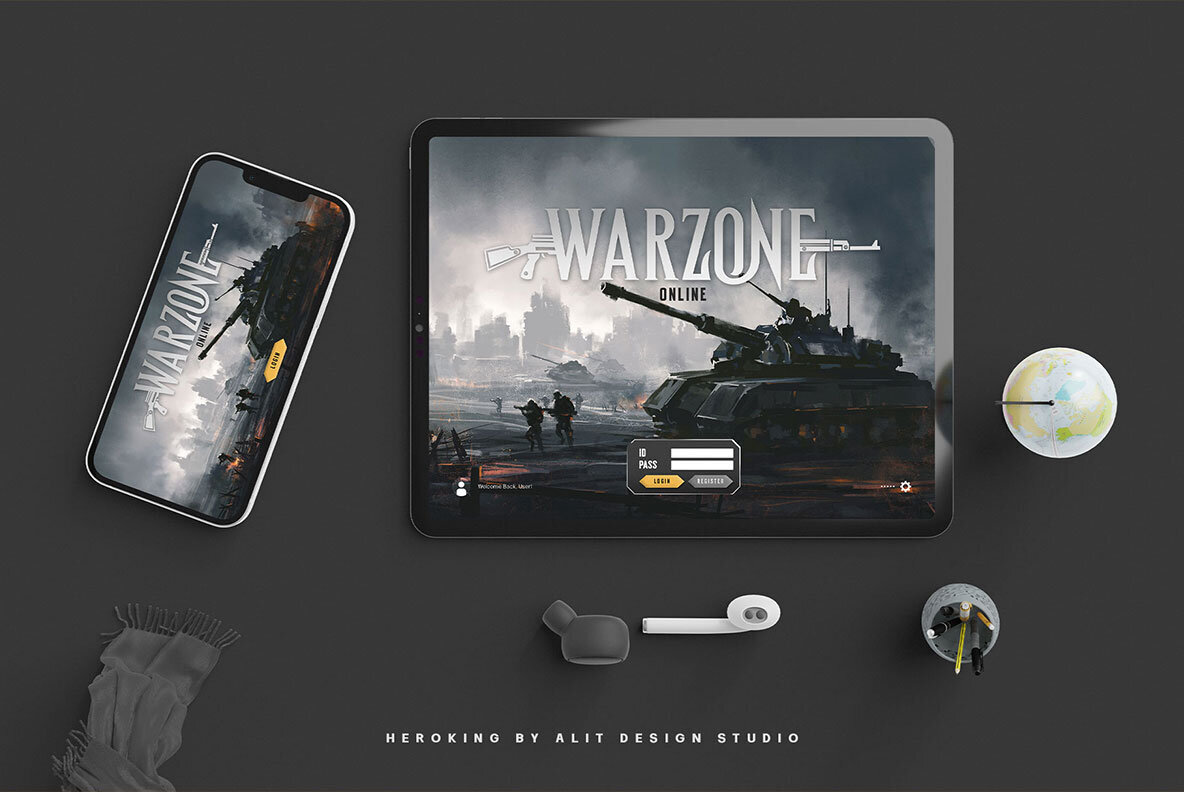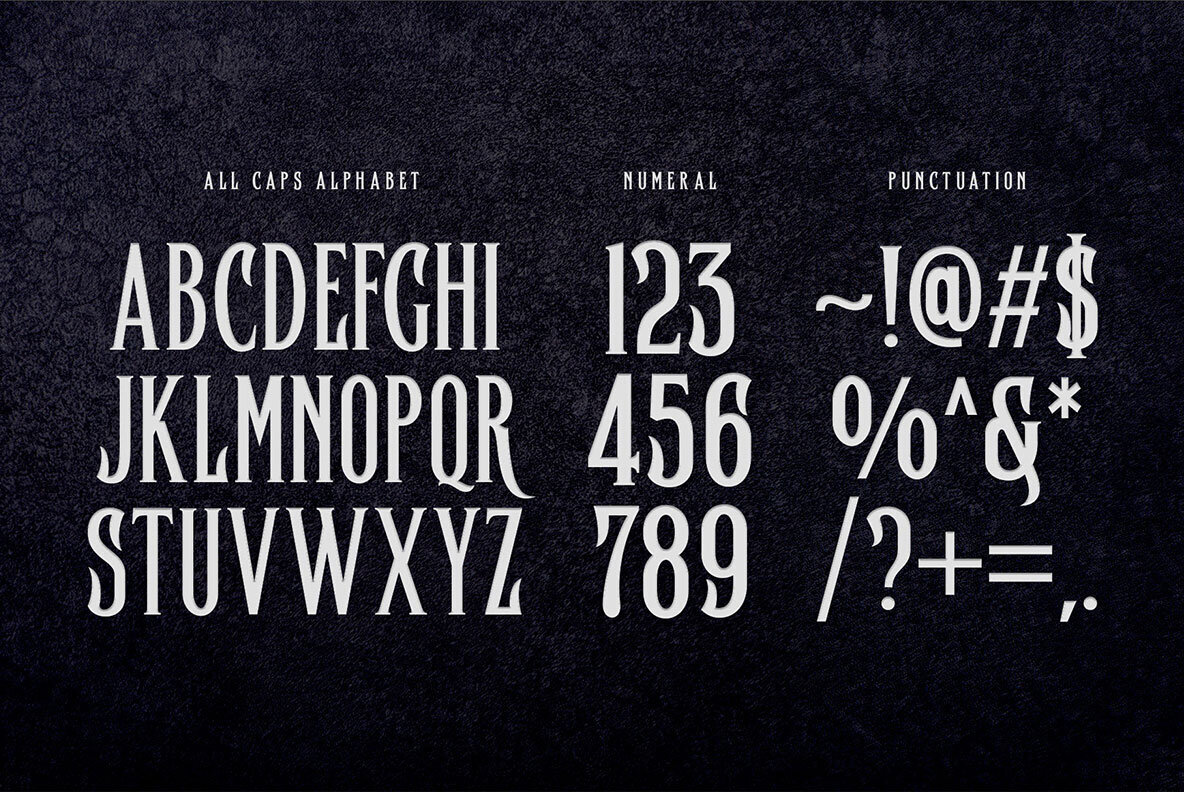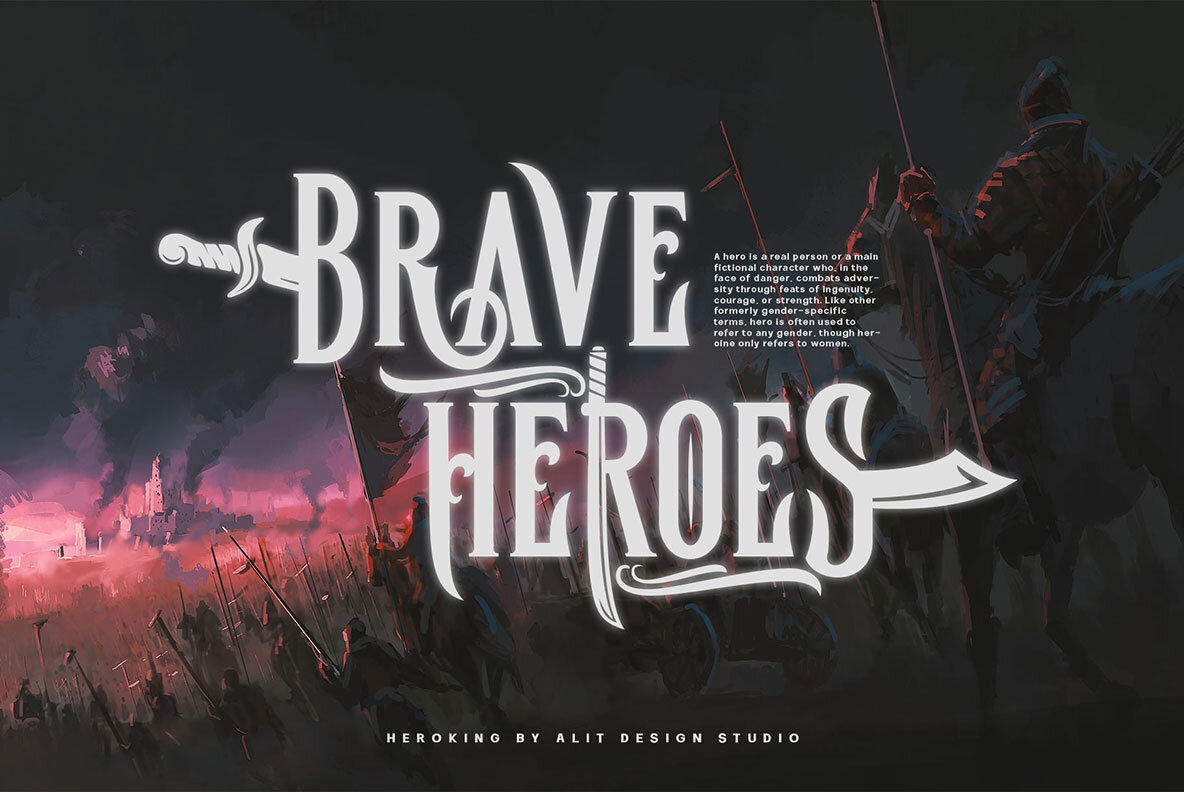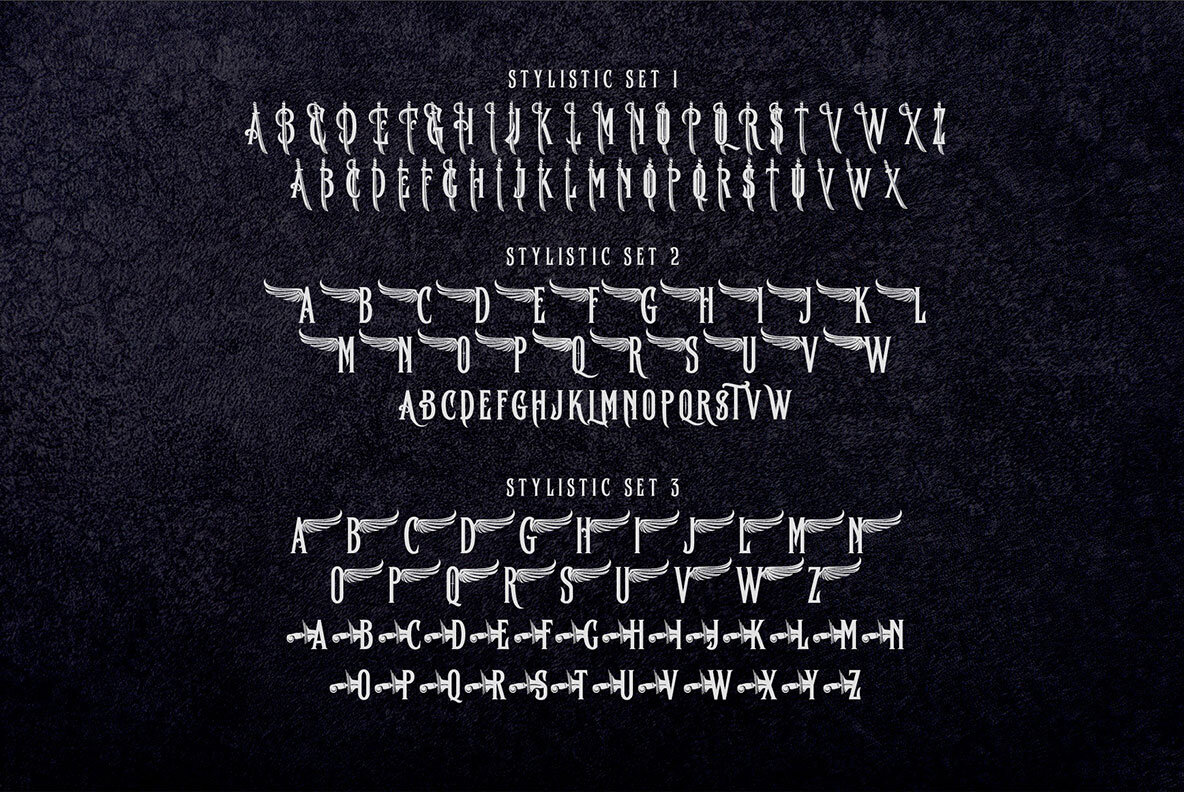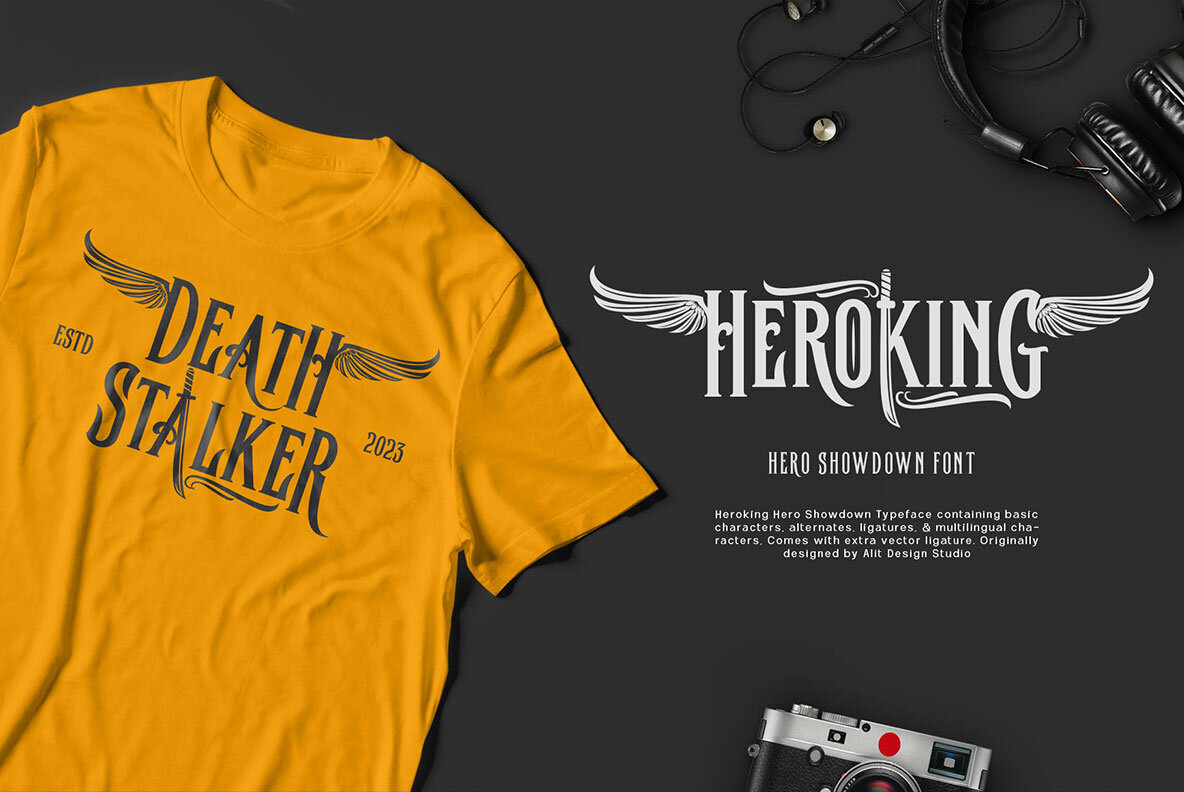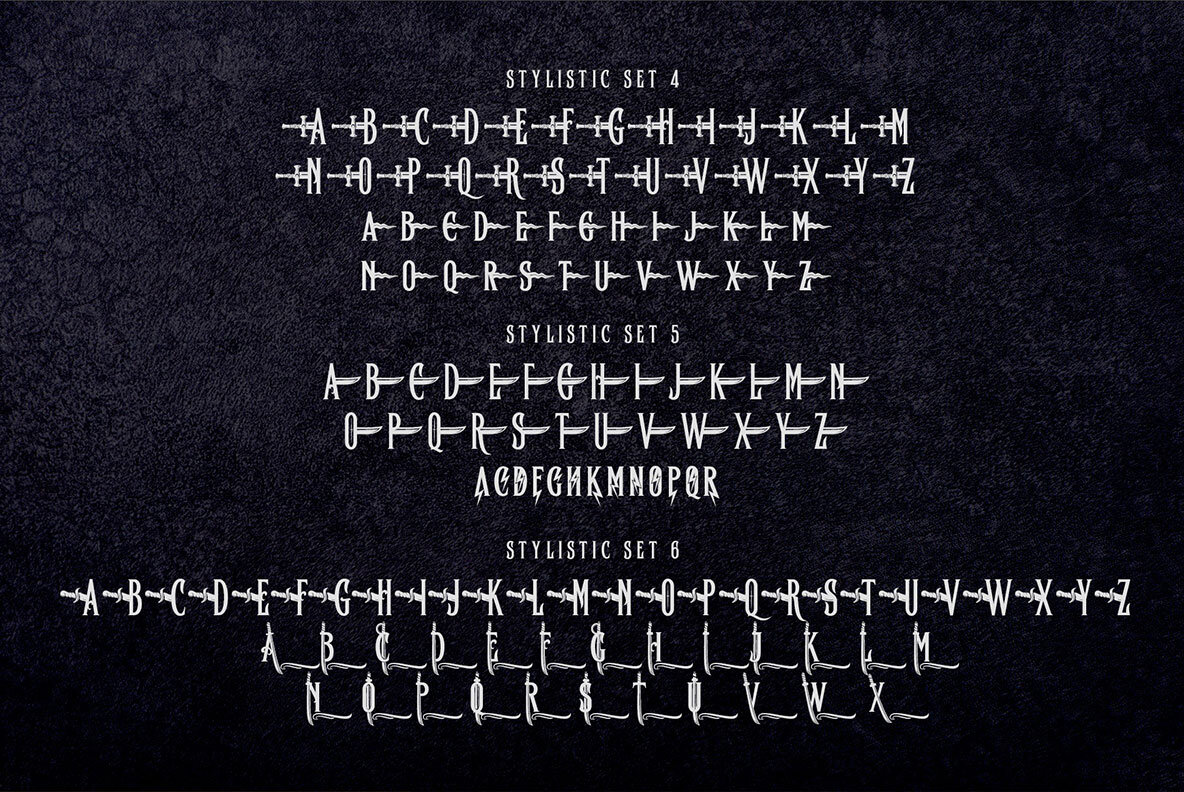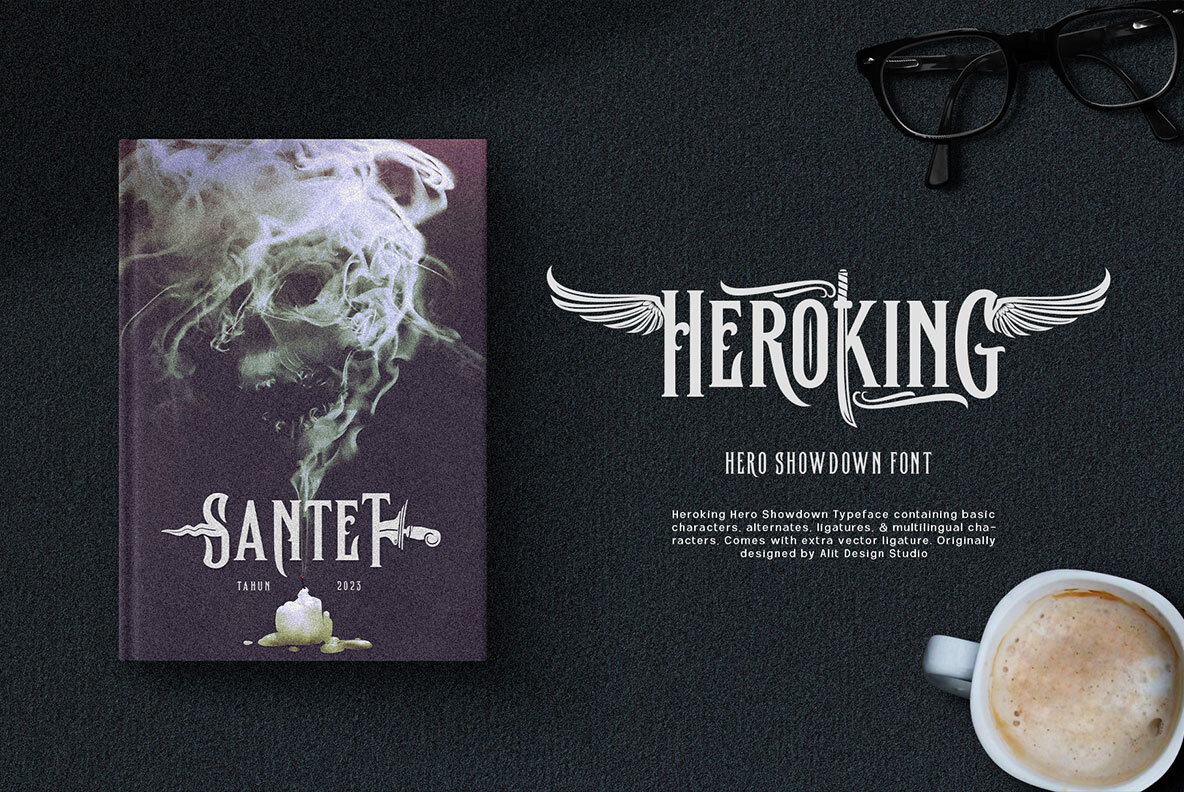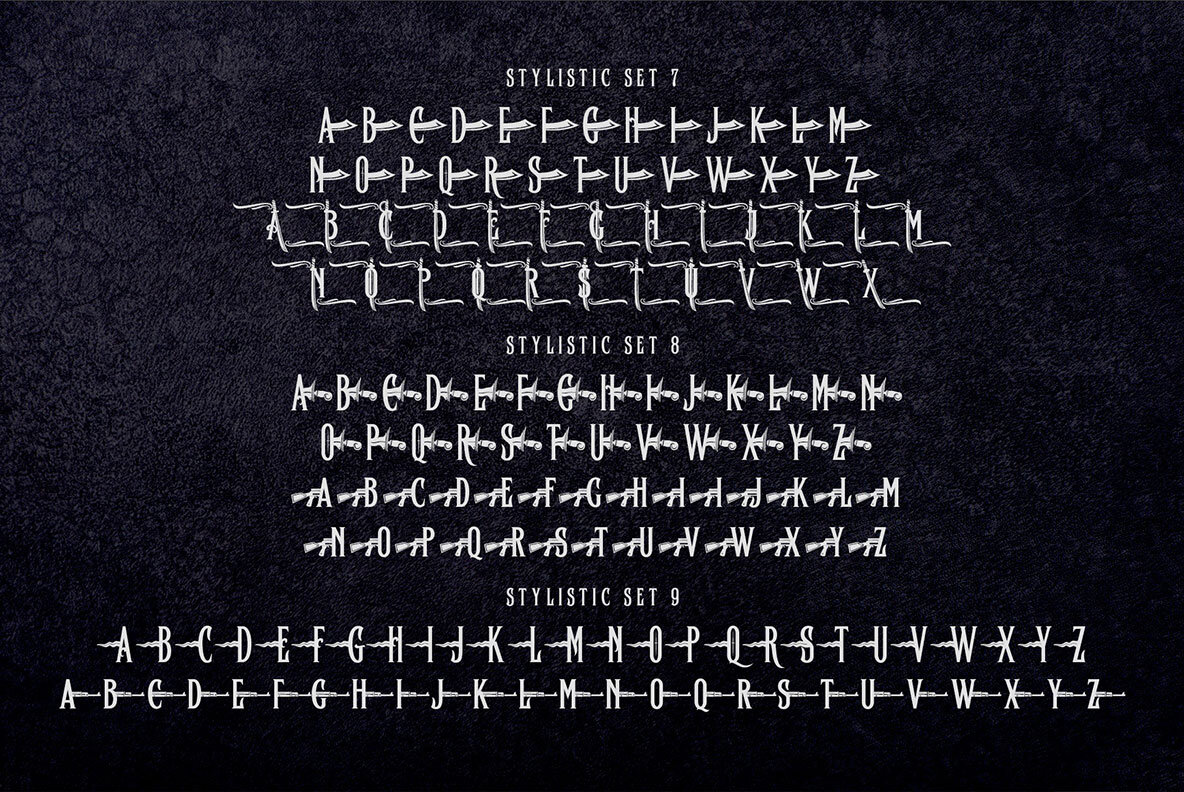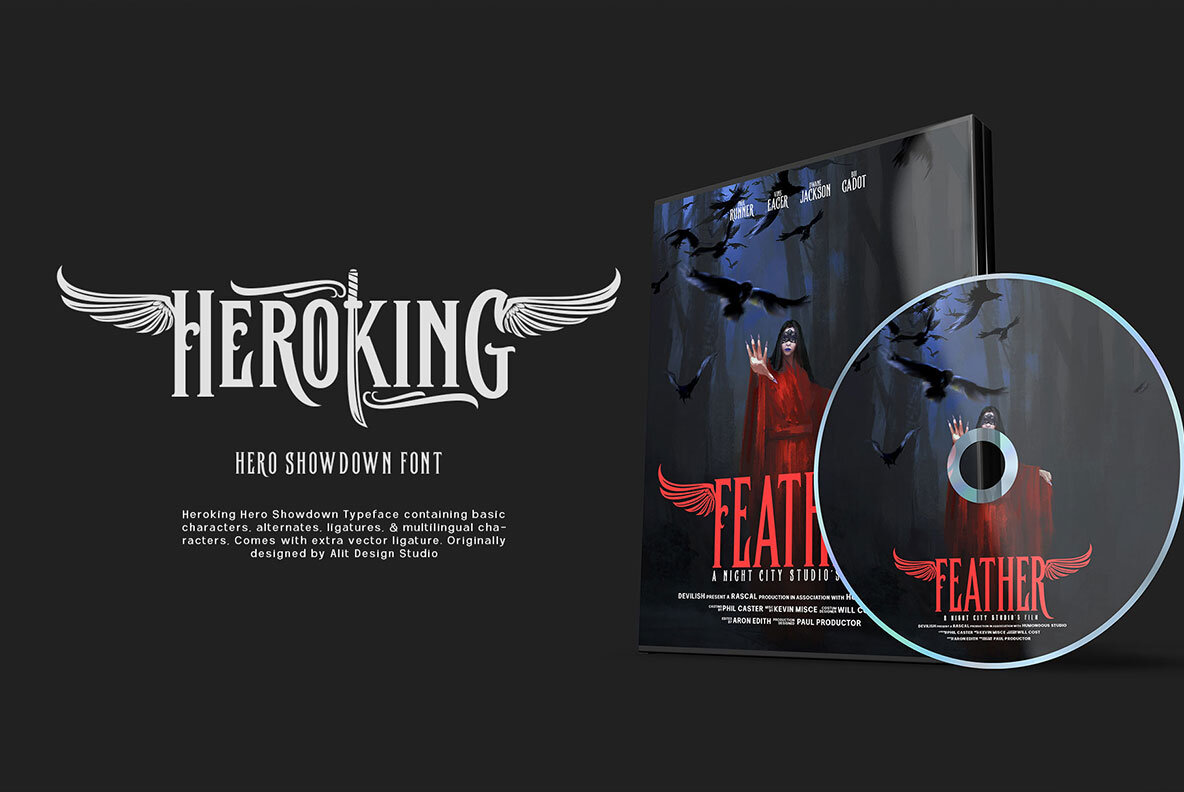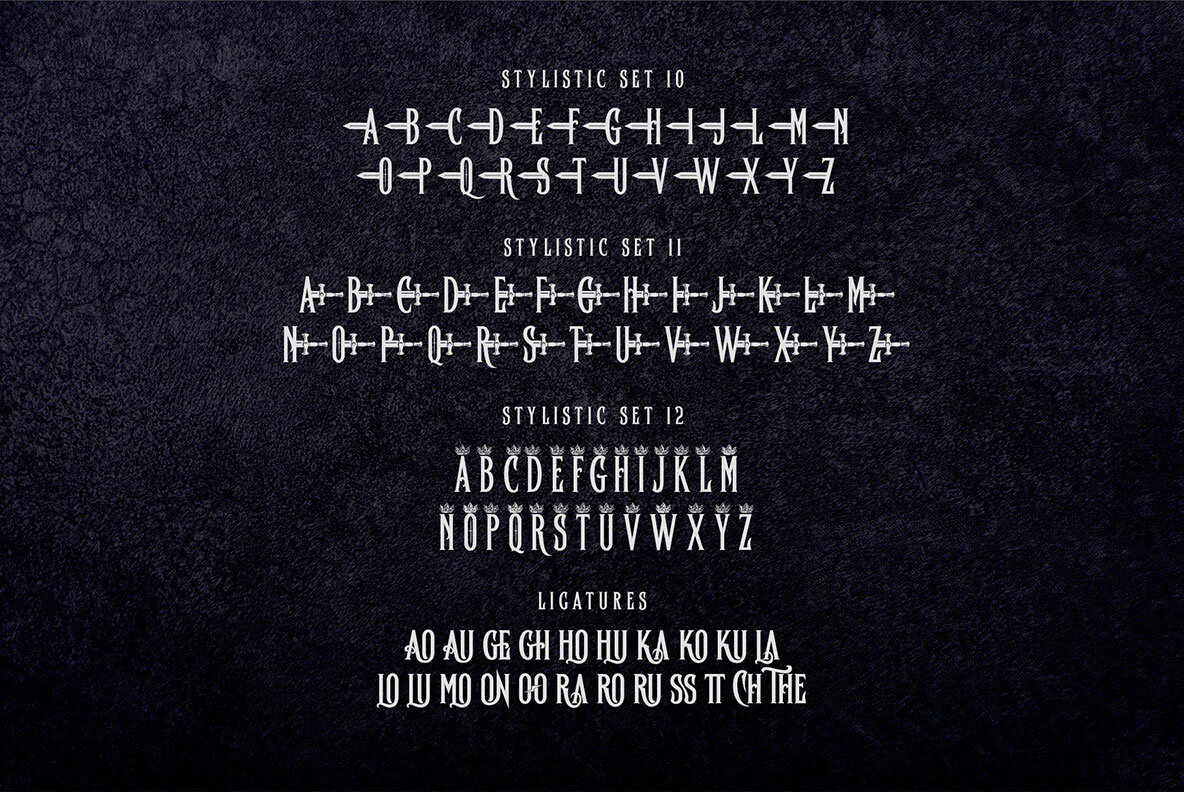
The Hero King Font
Inspired by the evocative visuals of action movie posters, The Hero King Typeface brings the majestic flair of knights and epic battles to your projects. Designed by Alit Suarnegara, this typeface suits a range of applications from hero movie titles and game covers to Halloween themes and striking t-shirt designs. Its bold character makes it an ideal choice for any project that demands a heroic touch. The versatility of The Hero King Typeface is enhanced by its array of alternatives, allowing you to blend swashes and symbols with heroic and war-themed elements. With a total of 1052 glyphs, including multilingual and symbolic characters, this typeface supports a wide range of languages such as Latin, Basic, Western, Central, and South European, and Vietnamese. For accessing the elegant swashes and glyph variations, it's best to use software that supports OpenType features such as Adobe Illustrator CS, Adobe Photoshop CC, or similar design applications. For those without glyph panel capabilities, additional swash font files can be installed to enhance design possibilities.The Hero King: Typeface for Bold Designs